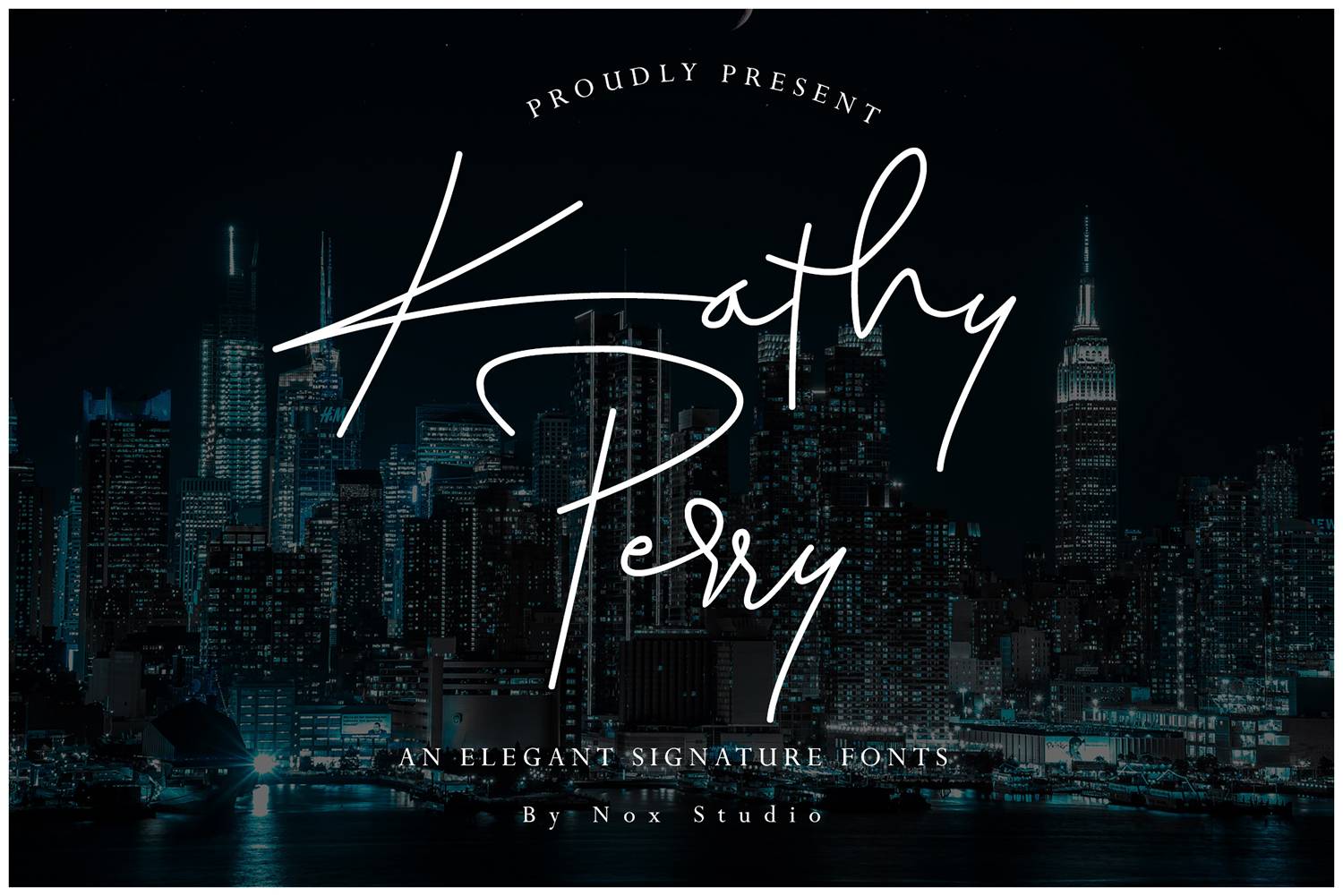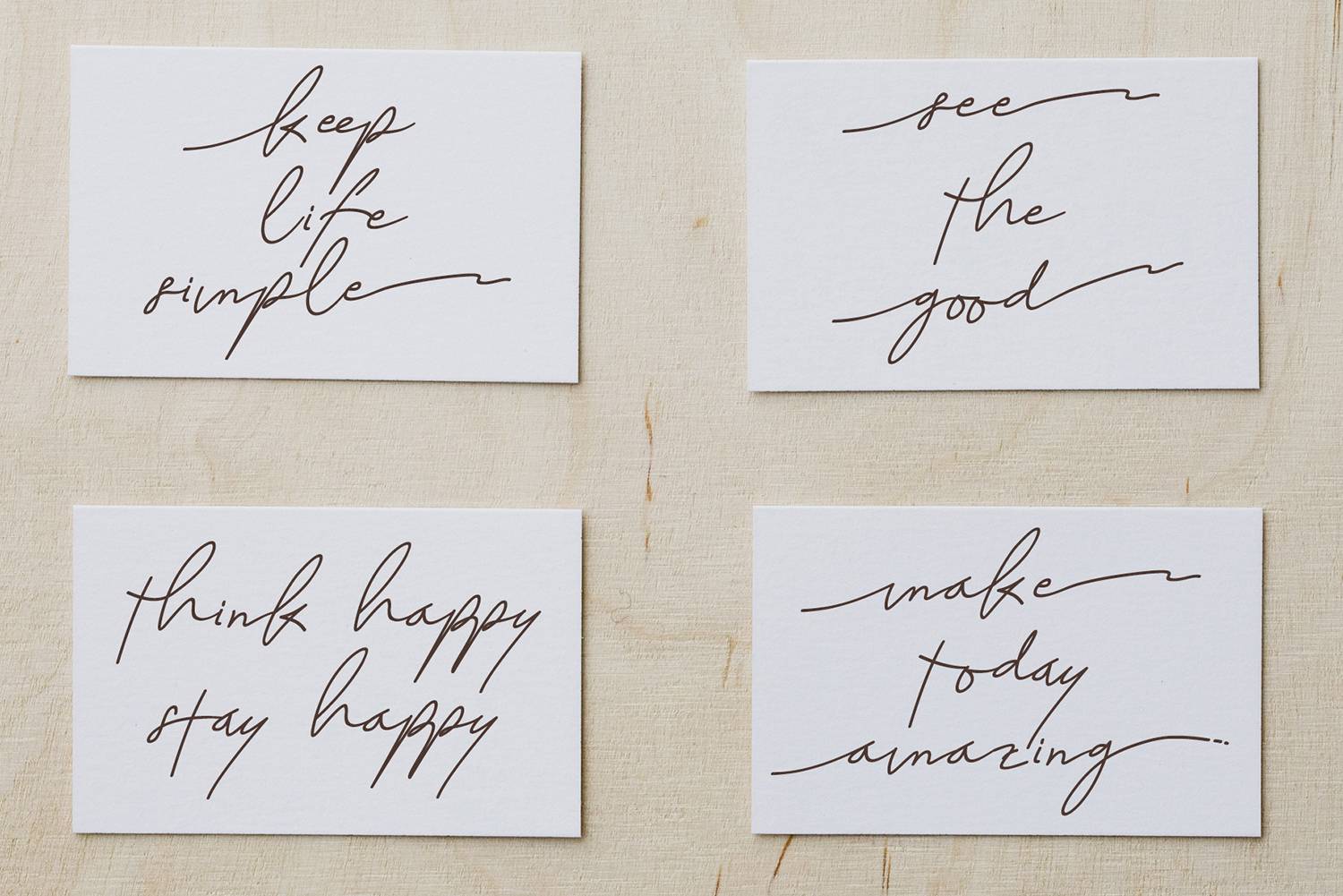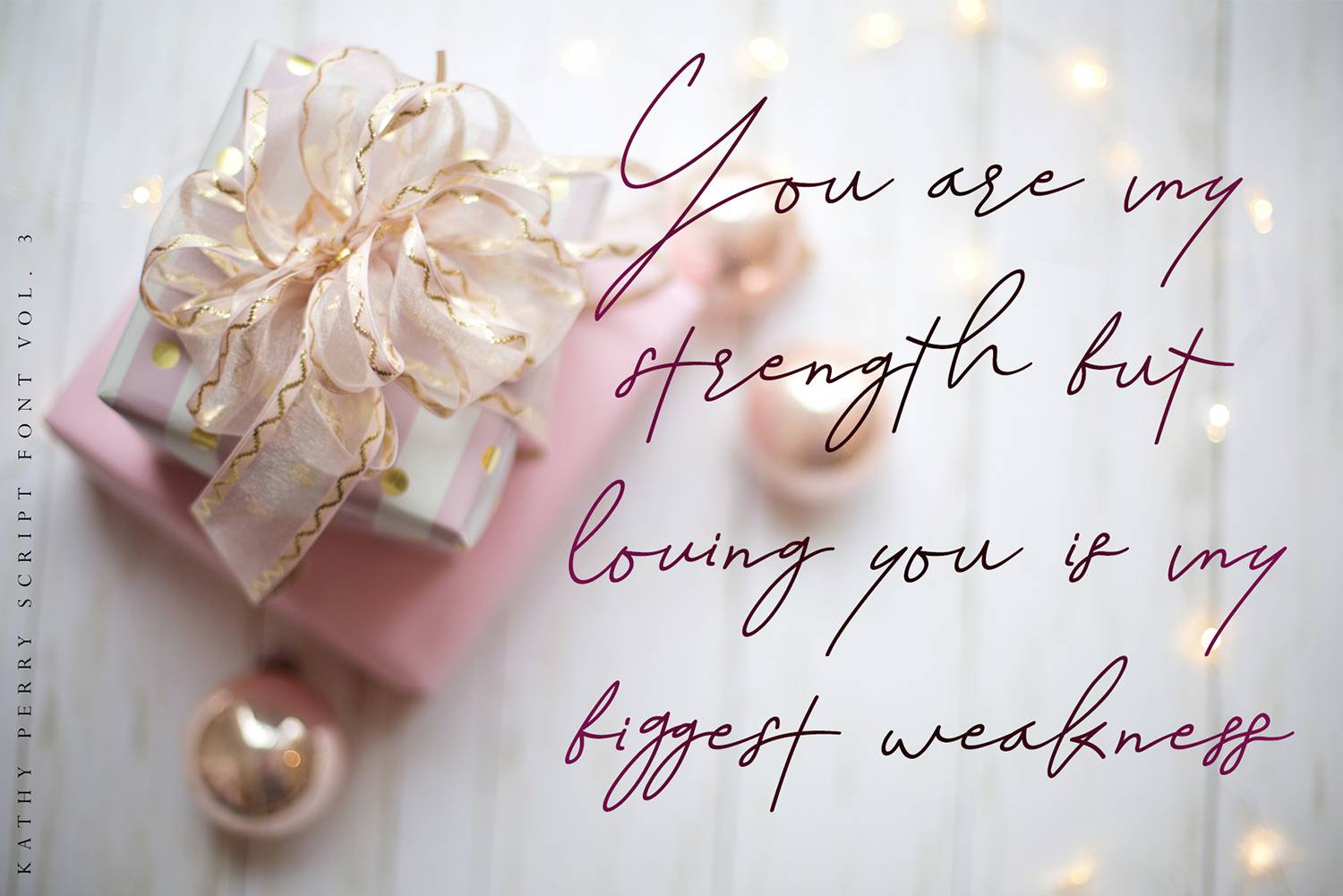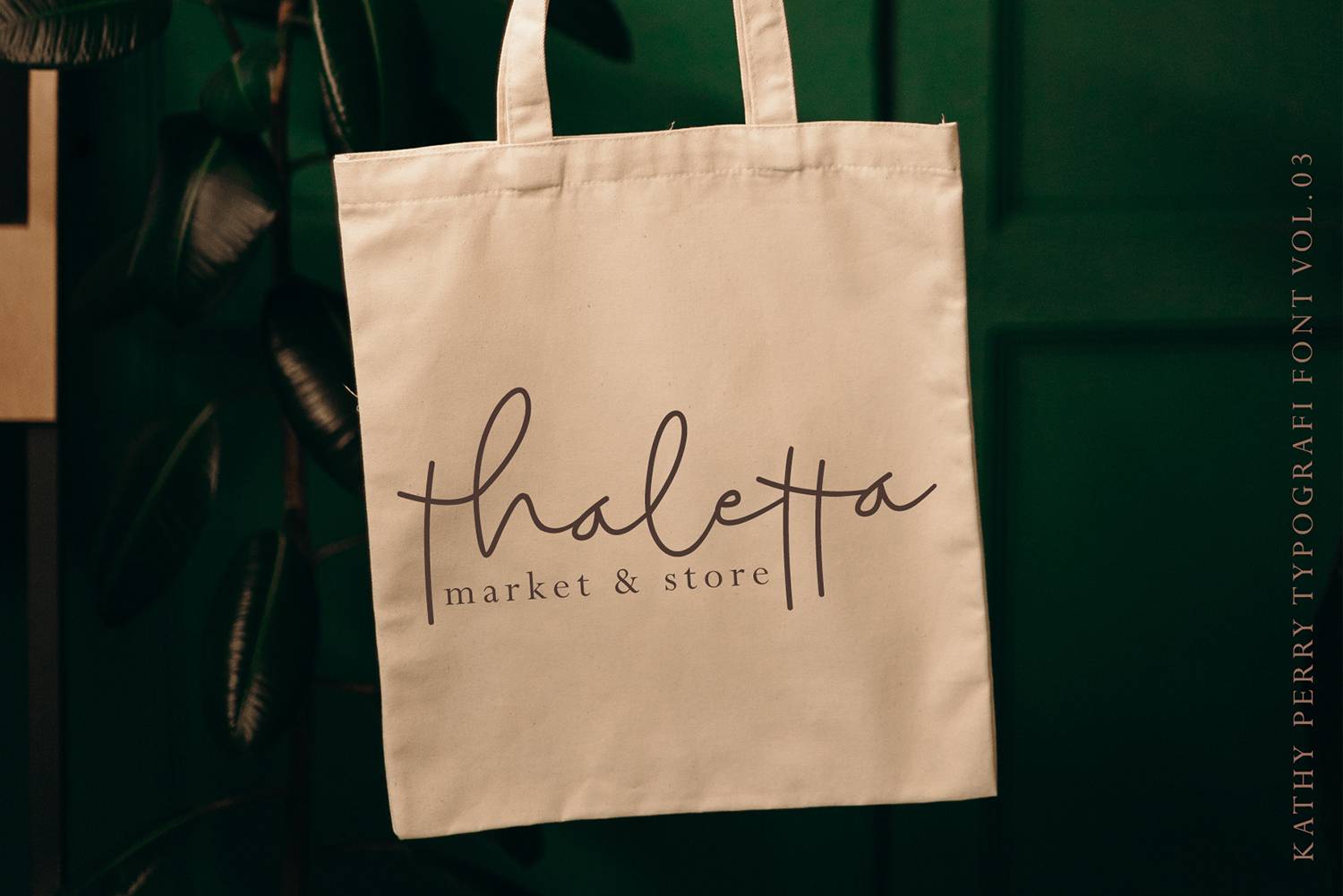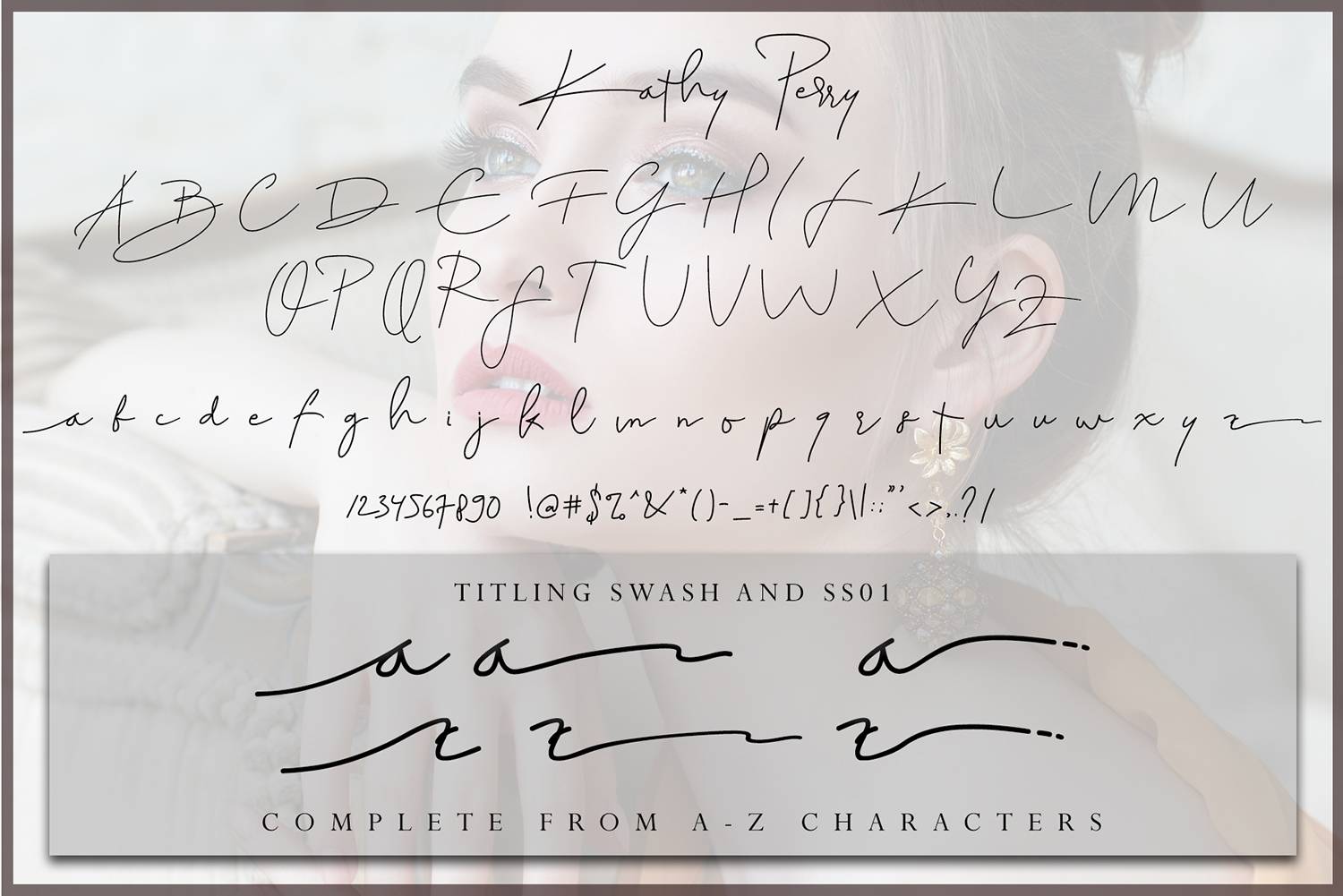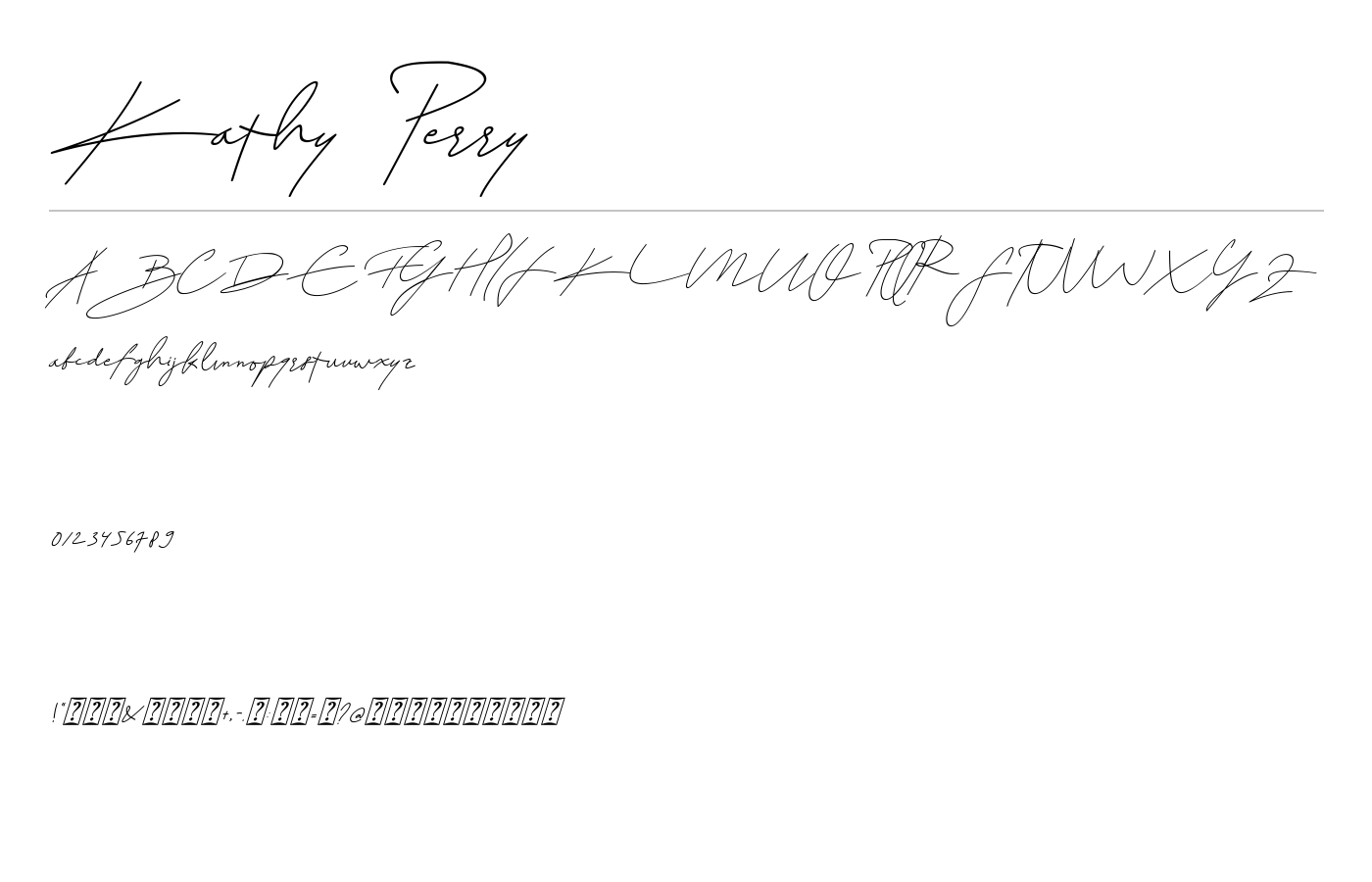
Kathy Perry is an elegant, delicate script font that mimics natural handwriting with its thin, flowing strokes and high, airy x-height. It has a refined, sophisticated feel suitable for personal branding, invitations, and creative projects where a touch of grace and individuality is desired. This font works best in large sizes for logos and headings, bringing a stylish, intimate vibe to any design.
Kathy Perry Font
About Kathy Perry Font
| Font family | Kathy Perry Font |
| Designer | Nox Studio 2021 |